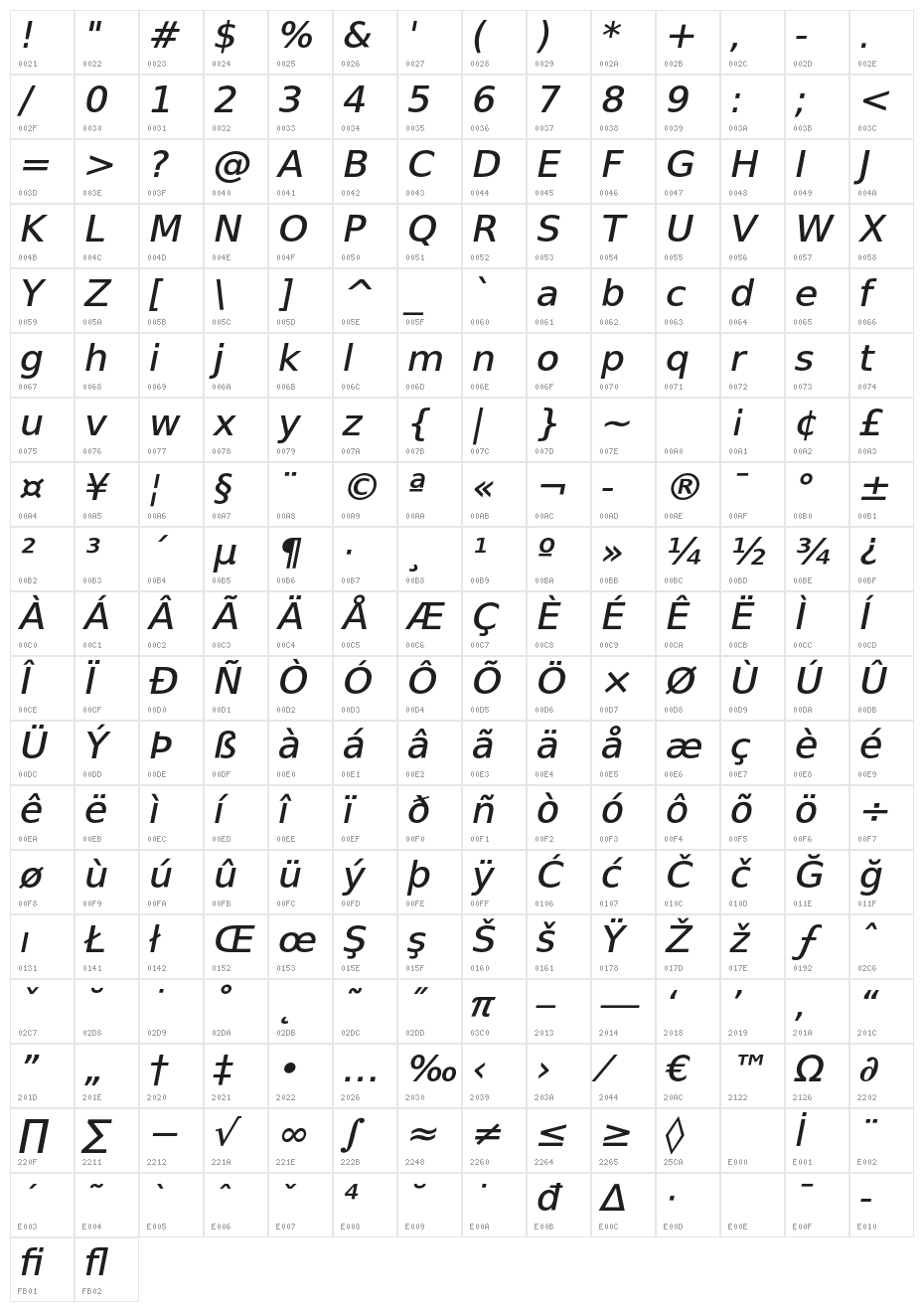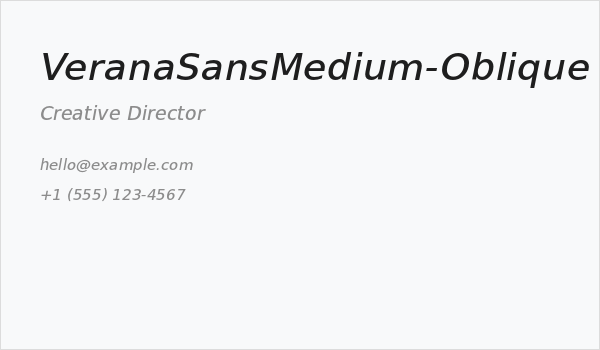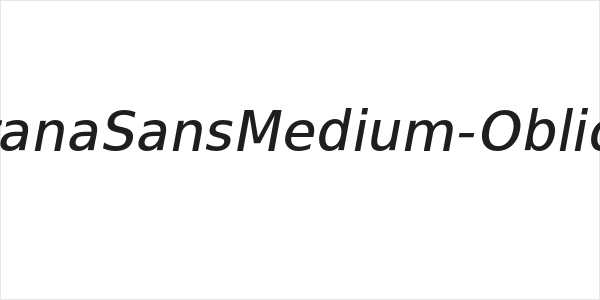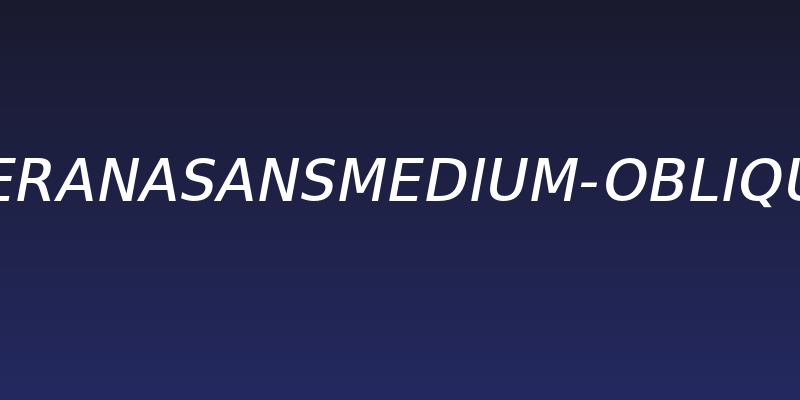
VeranaSansMedium-Oblique Font
VeranaSansMedium-Oblique Description
This font features a clean and modern sans-serif design with a slight oblique slant, giving it a dynamic and forward-moving appearance. The characters are well-proportioned with a consistent stroke width, providing a balanced and harmonious look. The uppercase letters are bold and assertive, while the lowercase letters maintain a friendly and approachable feel. The numerals are clear and easy to read, making them suitable for various applications. Special characters are well-integrated, ensuring versatility in design projects.
| Proposed Projects | Ideal for branding, advertising, digital interfaces, and editorial design where a modern and clean aesthetic is desired. |